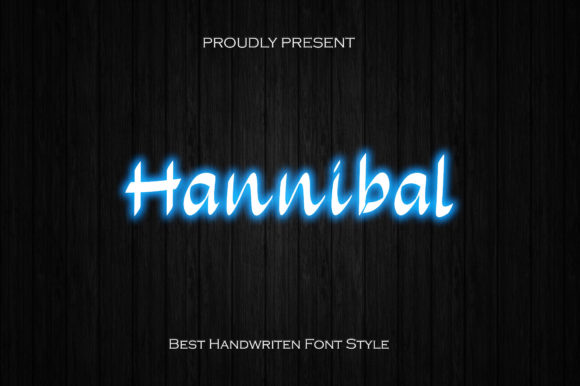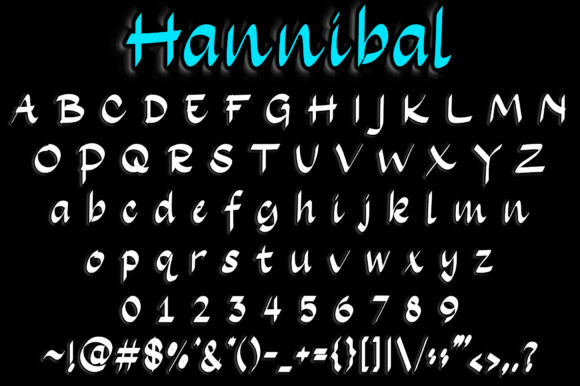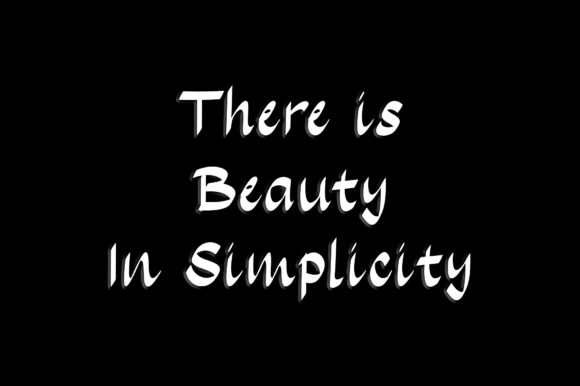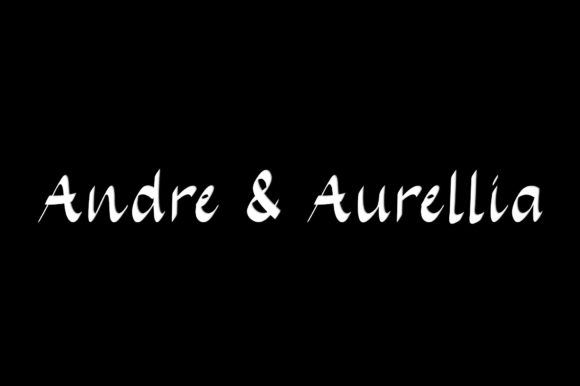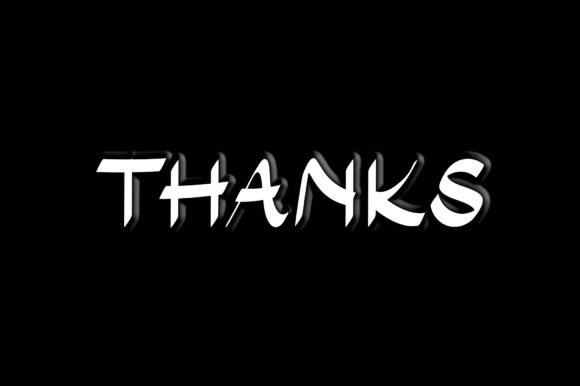
About Hannibal Font
Hannibal is a well-balanced and natural handwritten font. Whether you’re looking for fonts for banner, wedding card or anything you can imagine, this font will turn any creative idea into a true piece of art!